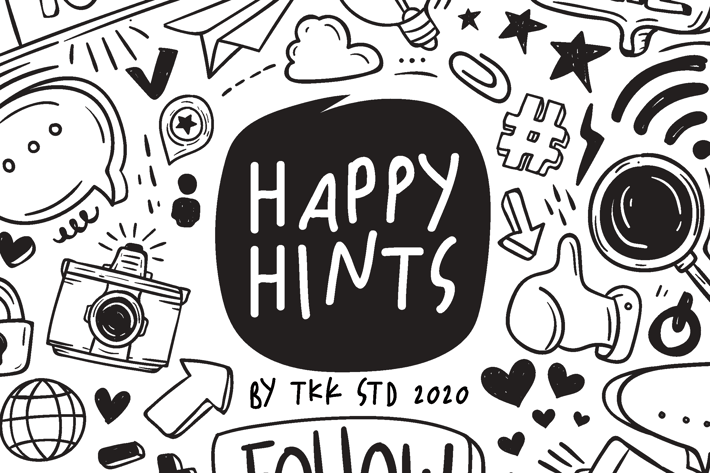
Happy Hints - kids doodle handwriting font
Happy Hints - Kids Doodle Handwriting Font
Happy Hints is a playful doodle font with a casual handwriting style, soft curves, and bouncy letterforms—crafted to capture childlike wonder. Designed with sketchy strokes and expressive irregularity, this typeface brings a joyful, handmade feel that mimics real kid-style notes. Its charming, friendly vibe is perfect for school projects, learning materials, birthday designs, and anything that calls for a light-hearted, approachable tone. Structurally informal yet visually coherent, it’s fun without being chaotic—ideal for creative brands with a youthful personality.
Whether you're crafting a children’s book title, designing DIY worksheets, creating a kid's cooking chart, or building an educational YouTube thumbnail, Happy Hints helps your message feel fun and welcoming. It resonates emotionally with parents, teachers, illustrators, and kid-focused content creators who want to connect with young minds through approachable, expressive type. It’s perfect for storytelling, crafts, product packaging for kids, and fun social media visuals.
Key Features :
Friendly & Informal Style
- Handwritten with bouncy, loose lines that add personality and energy to every word.
Great for Kids Projects
- Ideal for education-based content, toy packaging, birthday invitations, and doodle-driven visuals.
Encourages Creativity
- Looks like it was sketched with crayons or markers—perfect for creators, illustrators, and playful brands.
Supports Visual Learning
- Letter shapes are distinct yet simple, aiding readability for early learners and visual-heavy formats.